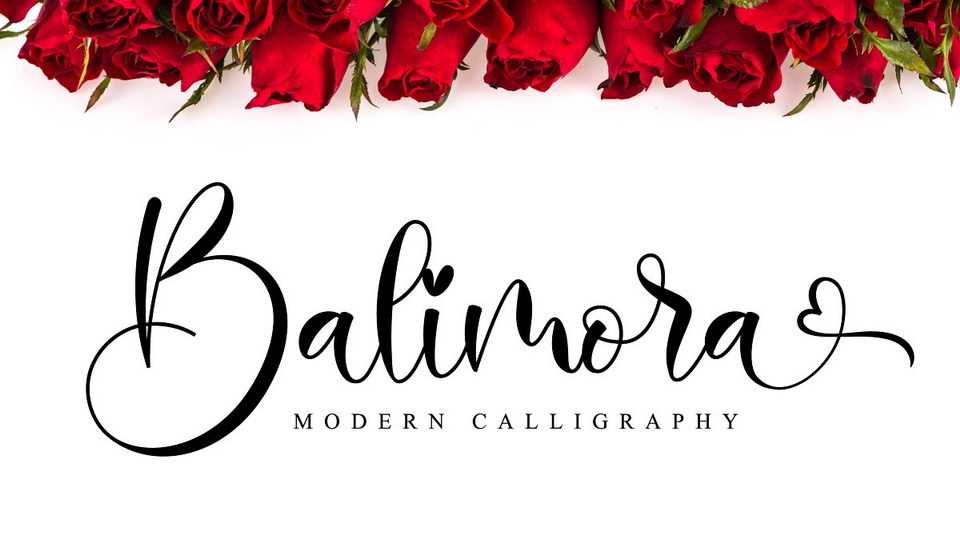
Download Balimora font, an incredibly romantic modern calligraphy script. Balimora has a classy, elegant look which can be used for logos, branding, invitations, stationery, wedding designs, social media posts, and much more!